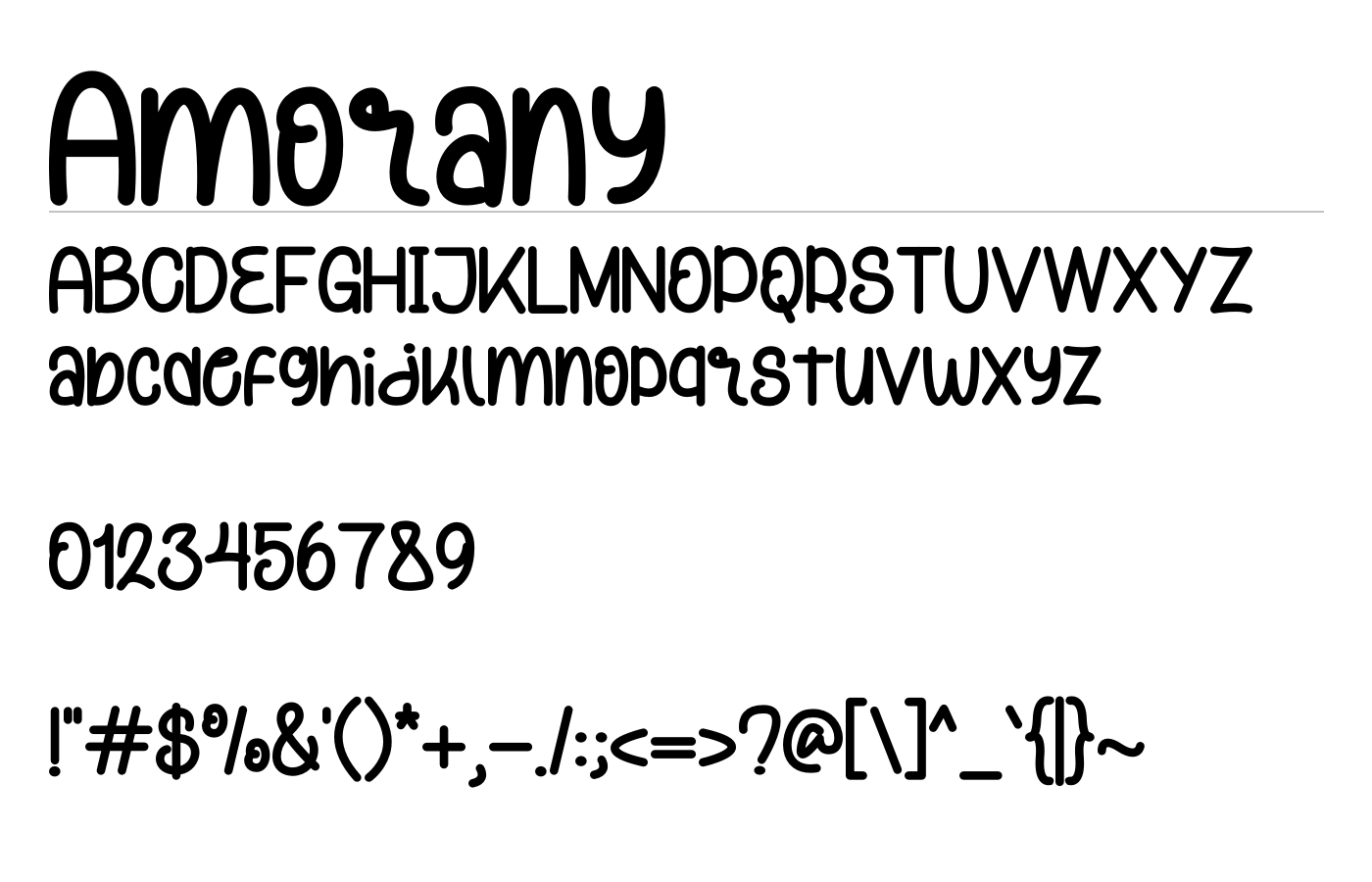
Amorany is a playful and casual sans serif font with a hand-drawn, slightly quirky character. Its rounded, uneven strokes and unique letter shapes give it a friendly, approachable feel, making it perfect for informal designs like children’s books, creative branding, or fun posters. This font works well for headlines or display uses where personality and warmth are needed.
Amorany Font
About Amorany Font
| Designer | Jada Akbal |